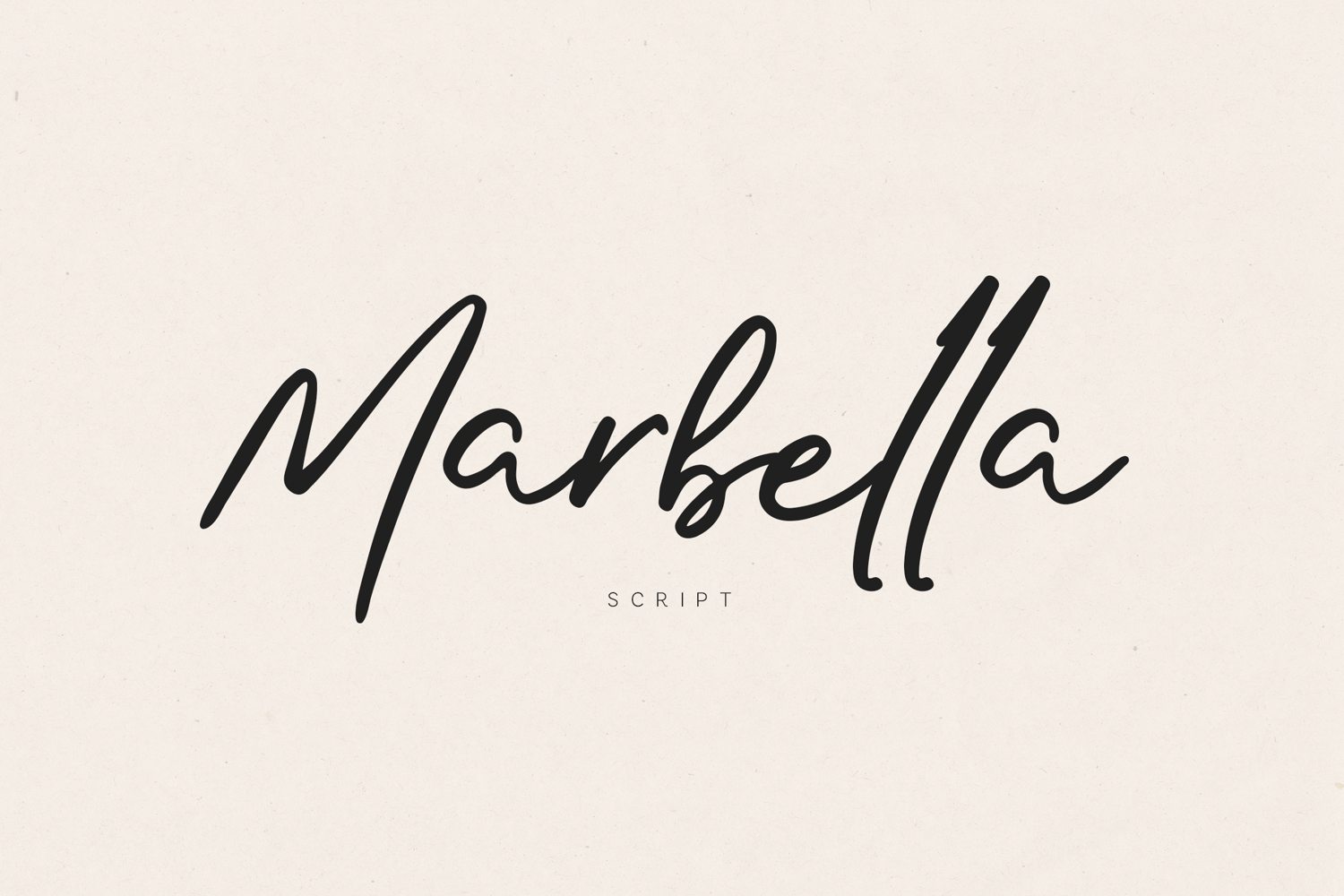
Marbella Elegant Handwritten Script Font
Marbella is a smooth and expressive handwritten script font designed to bring elegance and natural flow to modern typography. The letterforms feature fluid strokes, graceful curves, and balanced rhythm that create a sophisticated handwritten aesthetic.
The script structure blends modern handwriting with refined calligraphic influence, producing letterforms that feel both natural and polished. Marbella delivers a relaxed yet confident style that works beautifully in expressive typography and contemporary design compositions.
Each character is carefully drawn to maintain visual harmony and smooth connections, allowing words to flow naturally while preserving clarity and readability. The subtle contrast between thick and thin strokes adds visual movement and character to the typeface.
Marbella works especially well for branding, logos, editorial typography, social media graphics, packaging, invitations, posters, modern design layouts, and stylish headline compositions. Its flowing handwritten personality makes it ideal for projects that need warmth, elegance, and authenticity.
The font includes uppercase and lowercase characters, numbers, punctuation, and multilingual support, making it suitable for international typography and diverse creative projects.
With its elegant handwritten rhythm and modern script style, Marbella offers a refined script typeface for expressive contemporary typography.